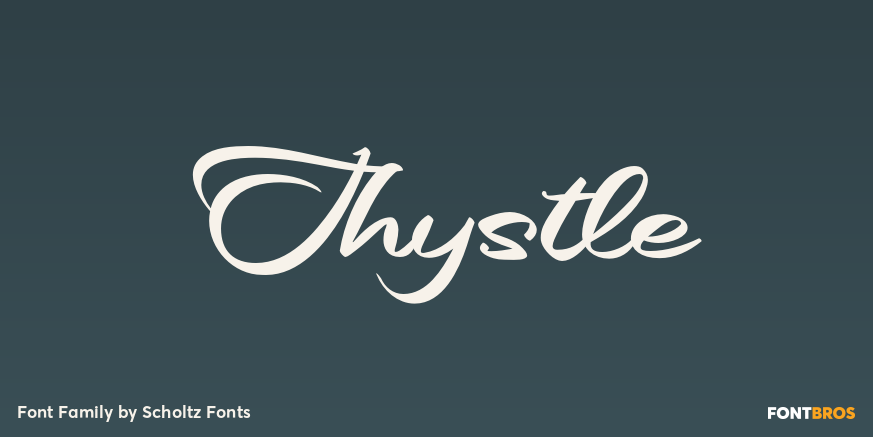
Thystle
About Thystle
Thystle is a ?font for all seasons?. It has six styles ranging from fine to in-your-face, from delicate mono-weight pen strokes to fully calligraphic lines, from delicate, narrow characters to bold, powerful statements. Characteristically, all the styles…